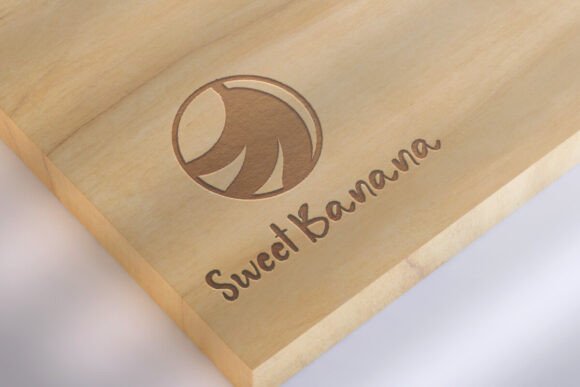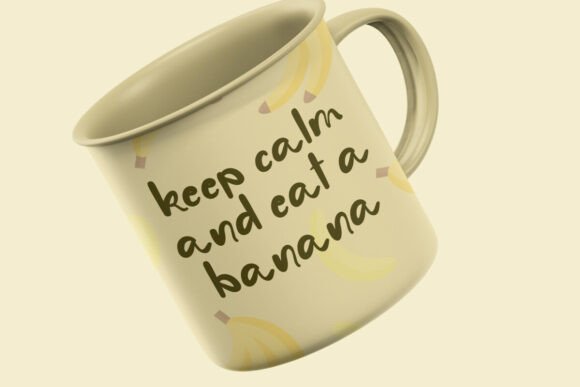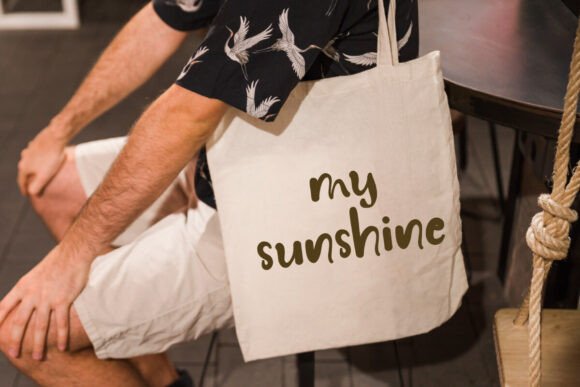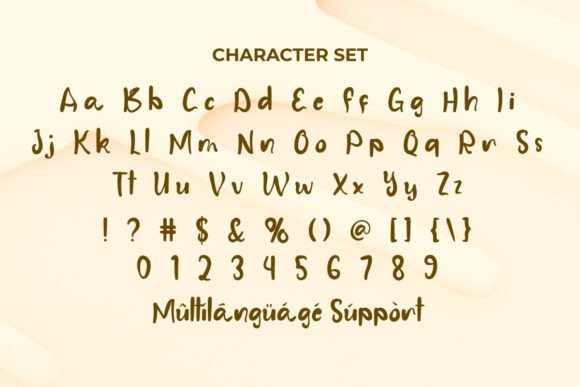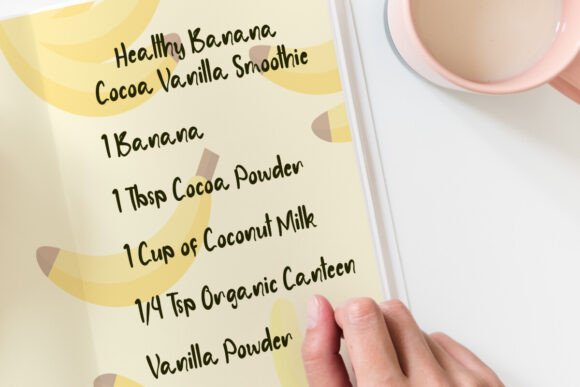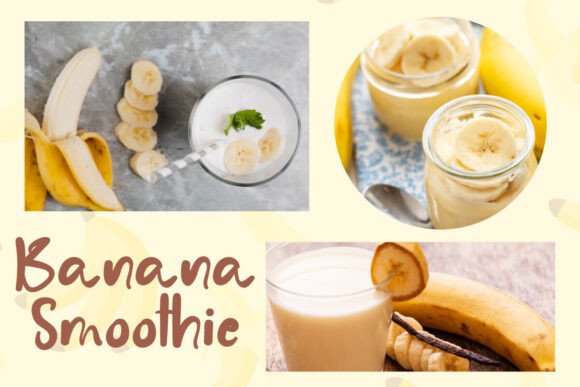
Introducing Banana Vanilla Font: The Ultimate Handwritten Font for Creative Designs
Are you a designer or crafter looking for a unique and playful font to elevate your creative projects? Look no further than Banana Vanilla Font, a slick and fancy handwritten font that’s perfect for a wide range of design needs. With its uneven brush thickness and organic flow, this font is sure to add a touch of personality and whimsy to any design.
What Makes Banana Vanilla Font So Special?
Banana Vanilla Font is a one-of-a-kind handwritten font that’s designed to mimic the beauty of human handwriting. Its smooth and sweet brush options make it expressive and versatile, perfect for a variety of situations and design applications. Whether you’re working on a logo, brochure, or social media graphics, this font is sure to make your designs stand out.
One of the best things about Banana Vanilla Font is its incredible versatility. This font can be used for a wide range of design needs, including:
- Advertisements: Grab attention with bold and eye-catching headlines
- Blogs: Add a personal touch to your blog posts and articles
- Branding logo: Create a unique and memorable logo for your business
- Business cards: Make a lasting impression with stylish and elegant business cards
- Cover design: Create stunning book covers and magazine designs
- Flyer: Design eye-catching flyers and brochures for events and promotions
- Greeting cards: Add a personal touch to your greeting cards and invitations
- Header: Create beautiful headers and titles for your website or blog
- Headline: Craft attention-grabbing headlines for your ads and marketing materials
- Label: Design stylish labels and packaging for your products
- Mockup template: Create stunning mockups for your designs
- Packaging designs: Elevate your product packaging with beautiful and unique designs
- Poster: Design bold and eye-catching posters for events and promotions
- Quotes: Create inspiring and beautiful quote graphics
- Menu brochure: Design elegant and stylish menus for your restaurant or café
- Screen print: Create stunning screen print designs for t-shirts and other products
- Stationery: Elevate your stationery and office supplies with beautiful designs
- Sticker: Design fun and colorful stickers for your products or promotions
- Title: Craft beautiful and unique titles for your books, articles, and designs
- Watermarks: Add a touch of elegance to your photos and designs with custom watermarks
- Website: Use Banana Vanilla Font to create a unique and memorable website design
- Wedding invitation: Create beautiful and elegant wedding invitations and stationery
Perfect for Various Businesses
Banana Vanilla Font is not just versatile in design applications, but also perfect for various businesses and industries. Some of the businesses that can benefit from this font include:
- Bakery: Add a touch of warmth and coziness to your bakery branding and packaging
- Café: Create a unique and inviting atmosphere with Banana Vanilla Font
- Event organizer: Use this font to create stunning event branding and marketing materials
- Fast food franchise: Add a playful and fun touch to your fast food branding and packaging
- Fashion: Elevate your fashion branding and marketing materials with this stylish font
- Food and drinks brands: Create mouth-watering packaging and branding with Banana Vanilla Font
- Graphic design: Use this font to create stunning graphic designs and visual materials
- Homeware: Add a touch of elegance and sophistication to your homeware branding and packaging
- Hotel: Create a warm and inviting atmosphere with Banana Vanilla Font
- Ice cream & gelato shop: Make your ice cream and gelato shop stand out with this fun and playful font
- Movie: Use this font to create stunning movie posters and marketing materials
- Restaurant: Elevate your restaurant branding and marketing materials with Banana Vanilla Font
- Photography: Add a touch of elegance and sophistication to your photography branding and marketing materials
- Printing: Use this font to create stunning print materials, such as brochures and business cards
- Publishing: Create beautiful and unique book covers and publishing materials
Why Choose Banana Vanilla Font?
With so many fonts available, why choose Banana Vanilla Font? Here are just a few reasons:
- Unique and playful design
- Versatile and adaptable to various design needs
- Perfect for a wide range of businesses and industries
- Easy to use and pair with other fonts
- High-quality and professional design
In conclusion, Banana Vanilla Font is a unique and versatile handwritten font that’s perfect for designers and crafters looking to elevate their creative projects. With its playful and fancy design, this font is sure to add a touch of personality and whimsy to any design. Whether you’re working on a logo, brochure, or social media graphics, Banana Vanilla Font is the perfect choice. So why wait? Download Banana Vanilla Font today and start creating stunning designs!